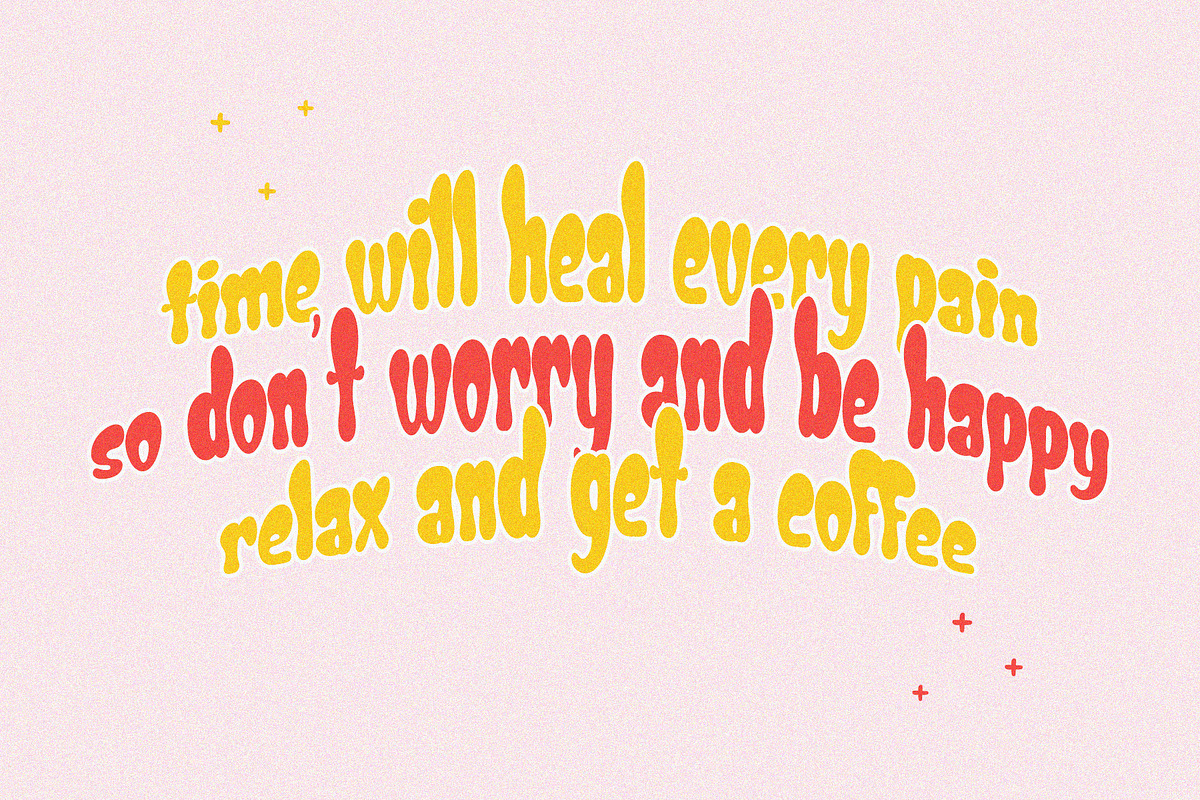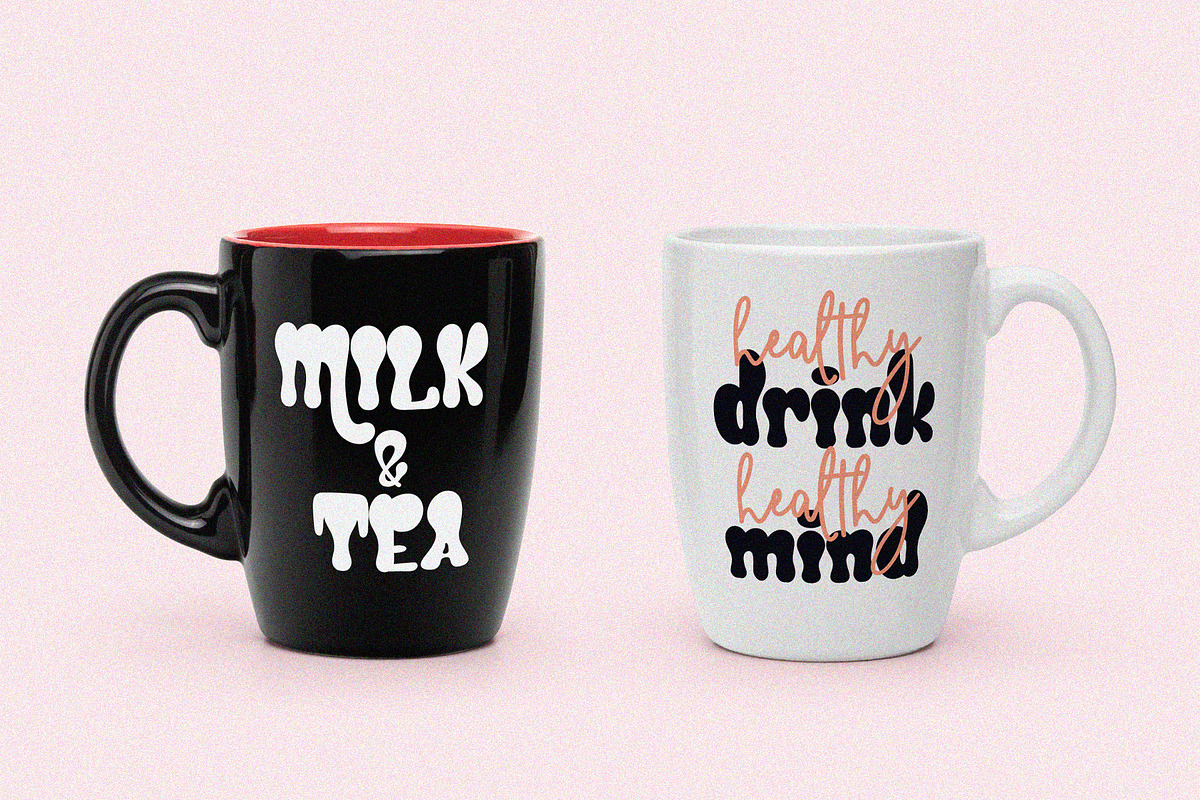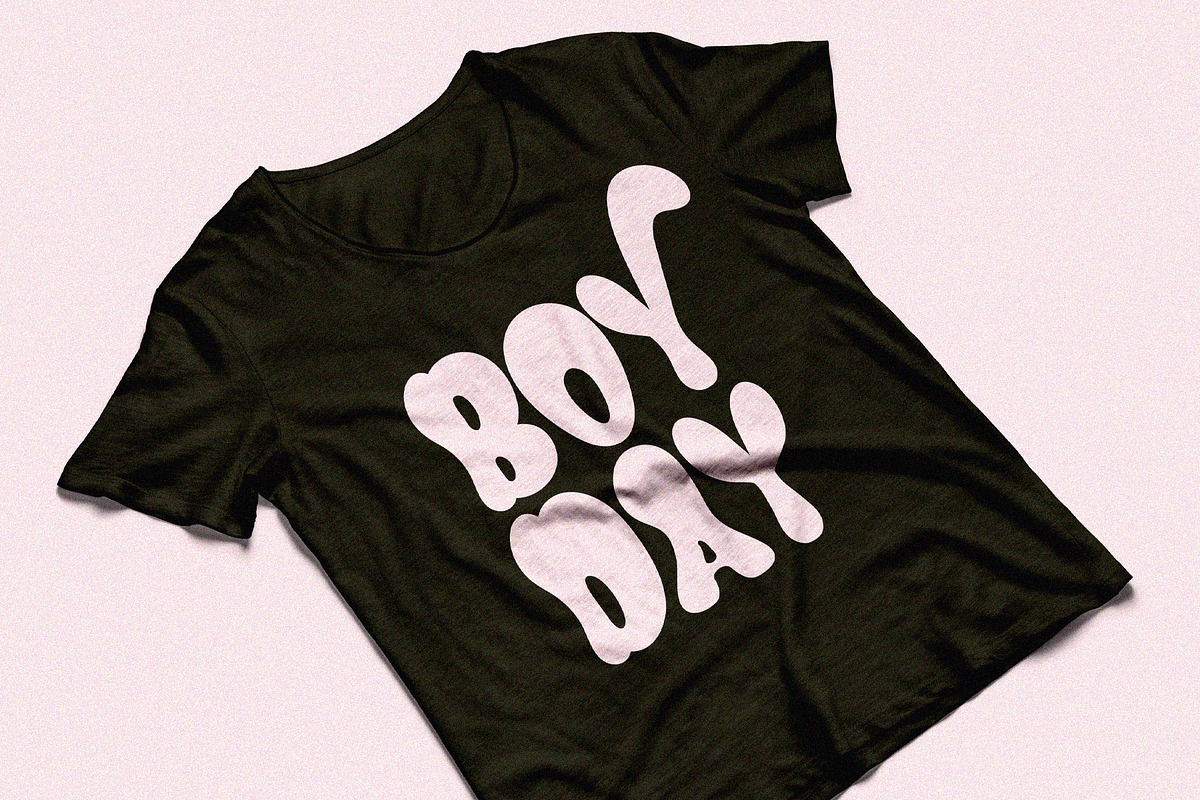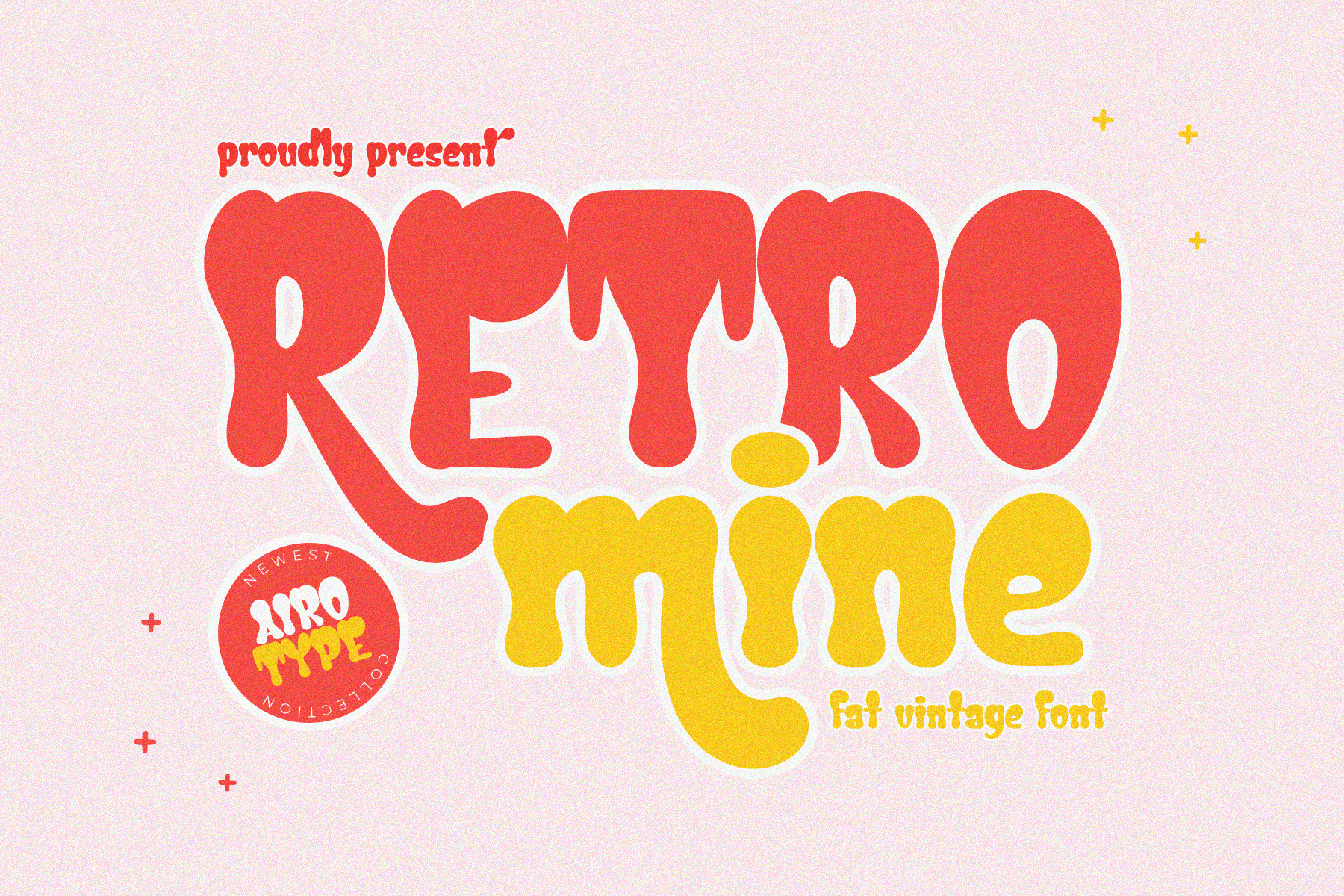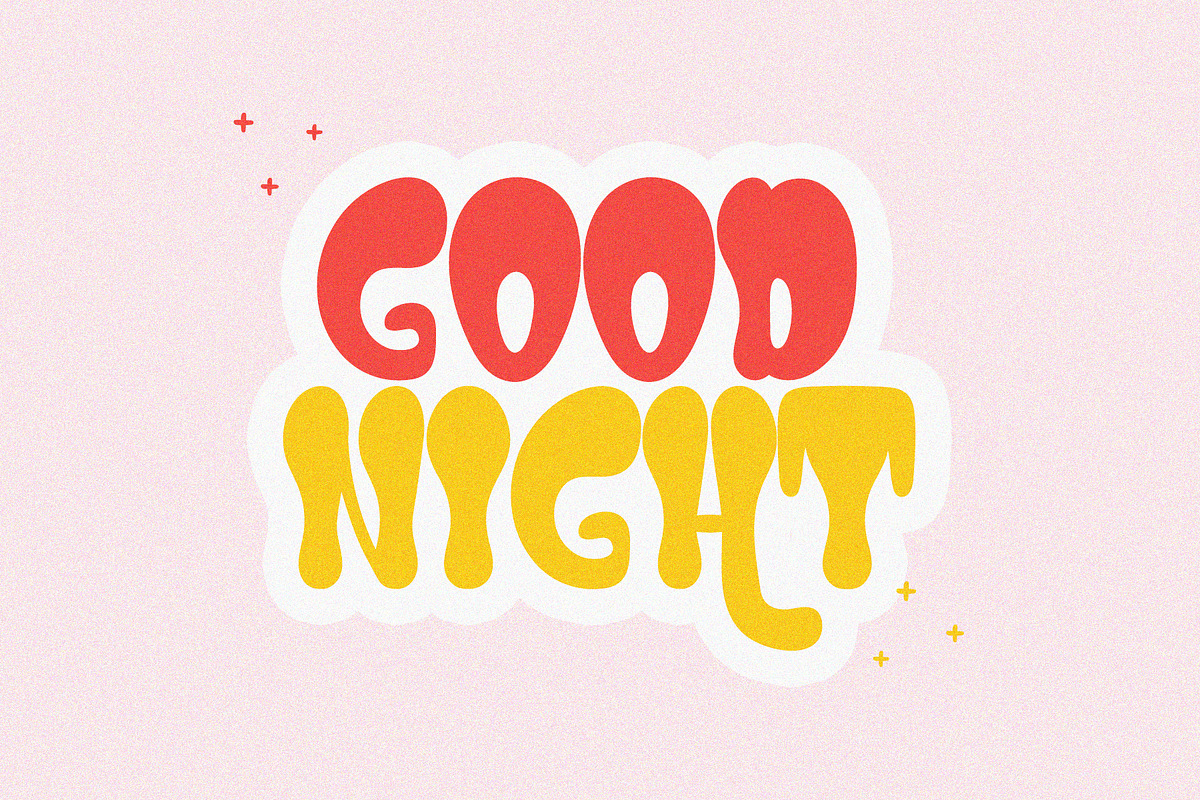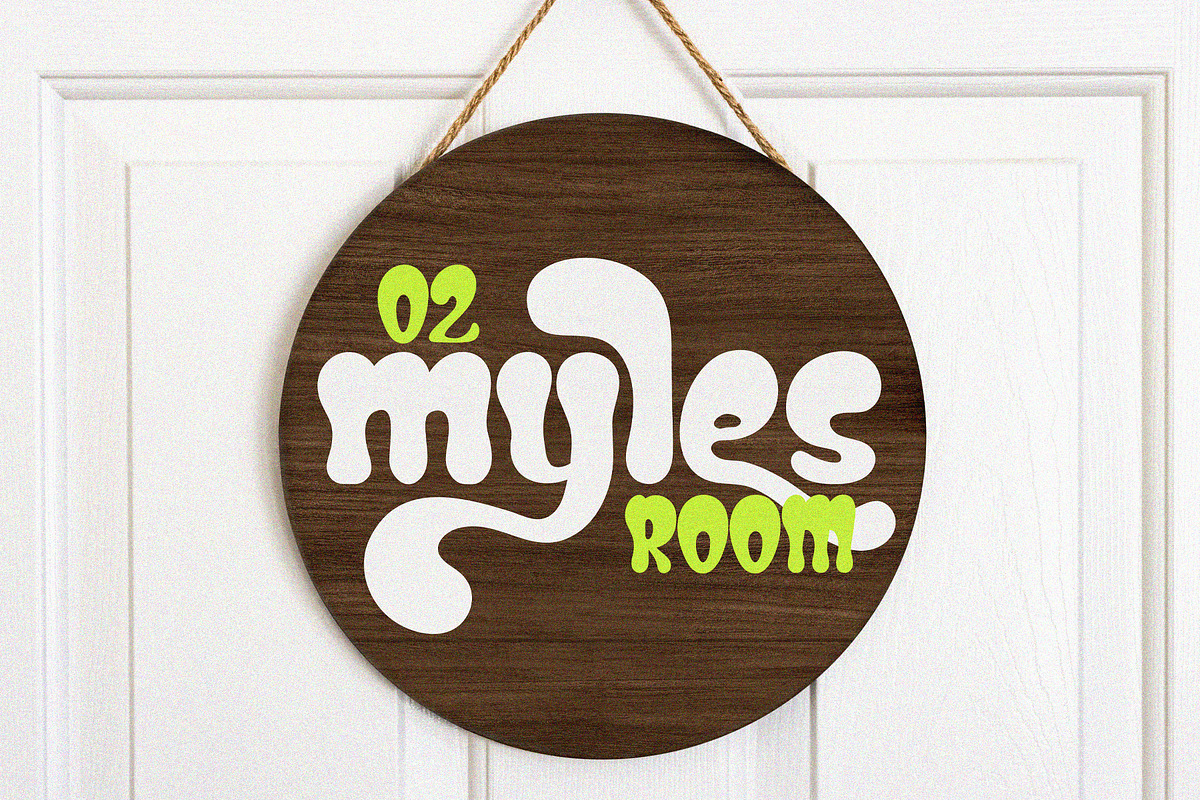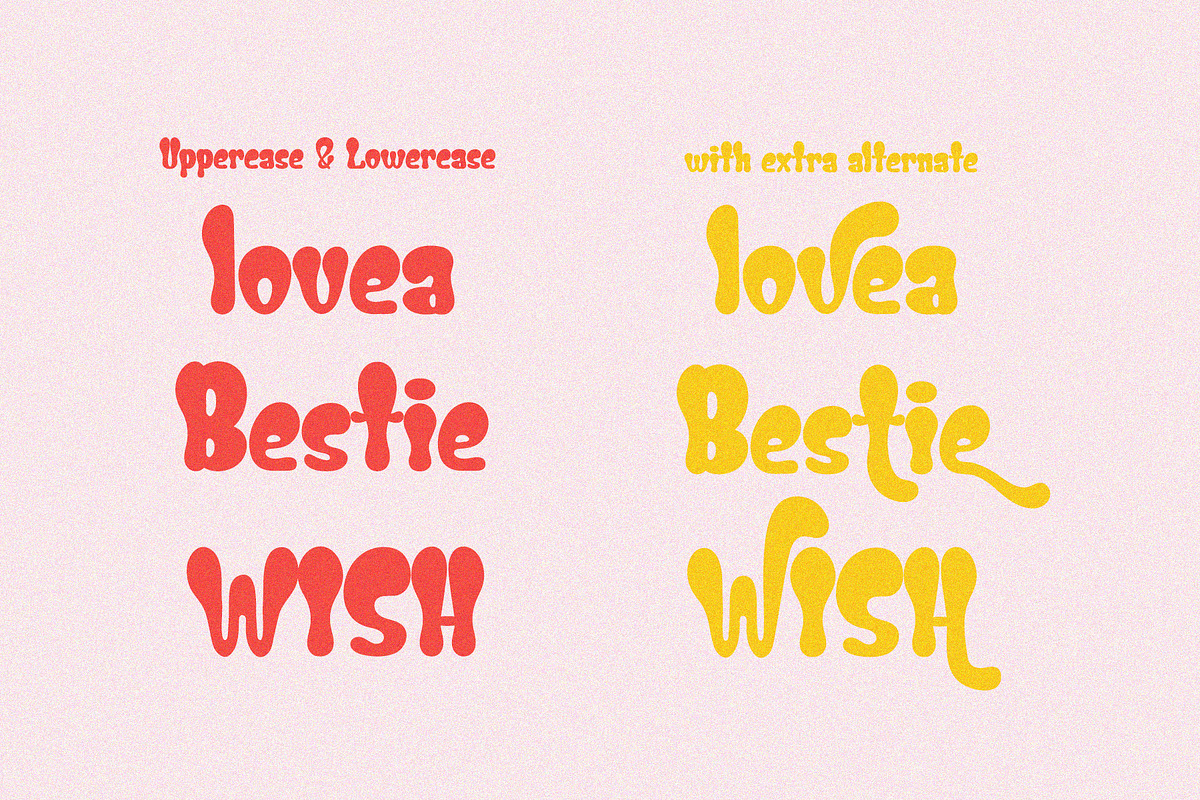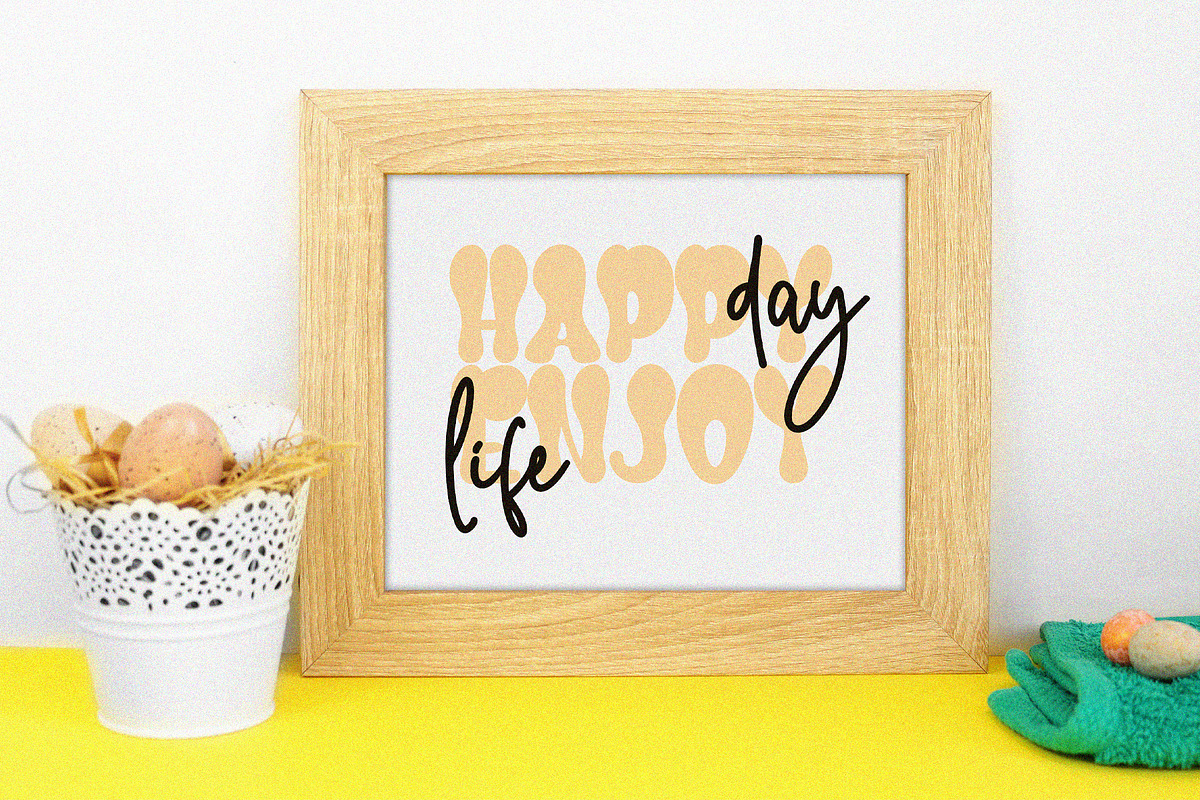
Retro Mine - Modern Vintage Font
Retro Mine is fatty and bubbly font with vintage touch. Although it had vintage vibes, but this font can be used for modern design or any other playful craft design.
Retro Mine has alternative extra glyphs that can be accessed easily.
This font is perfect modern retro font for any projects, such as logo, crafting, poster, branding, sticker, sublimation, and many more.